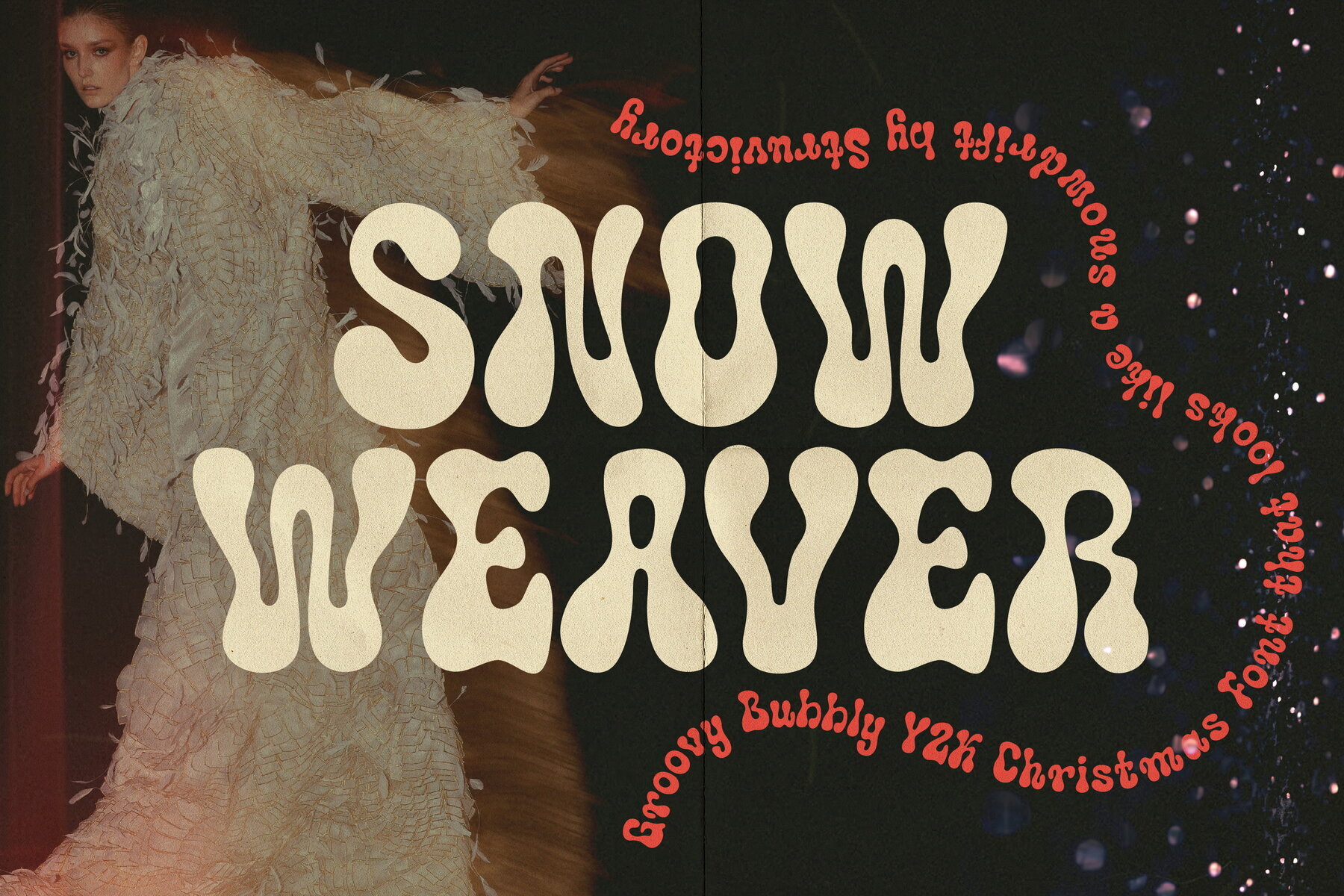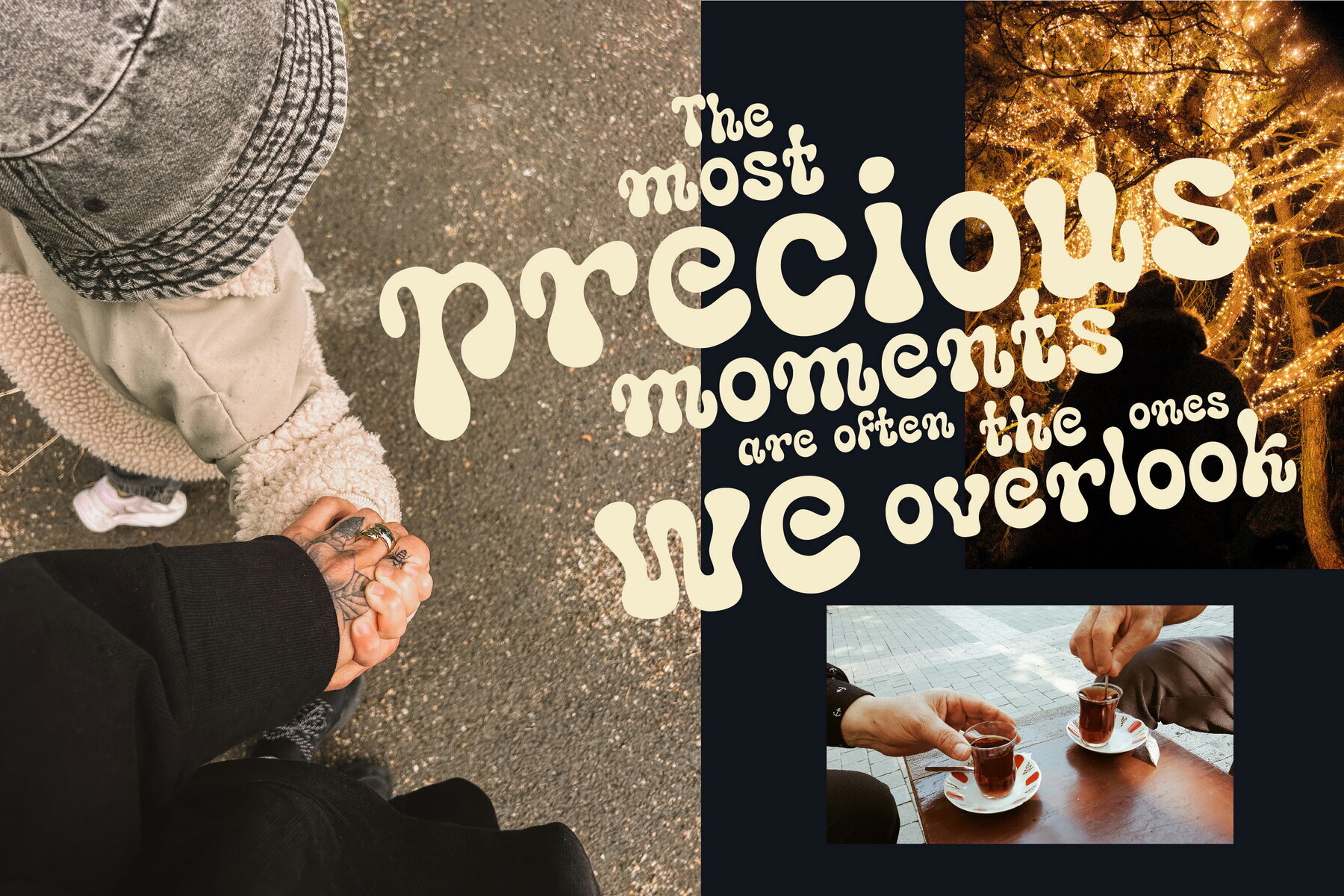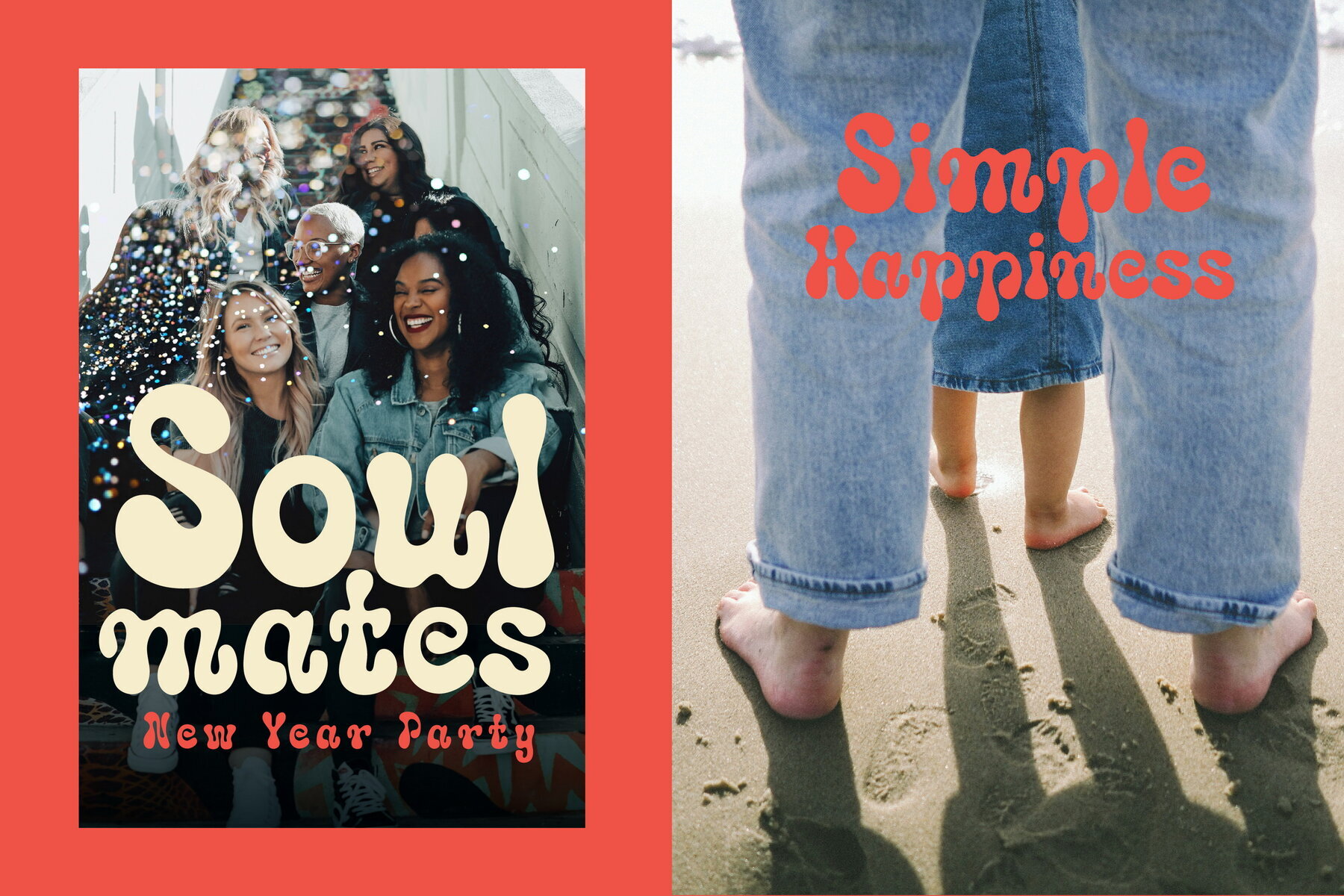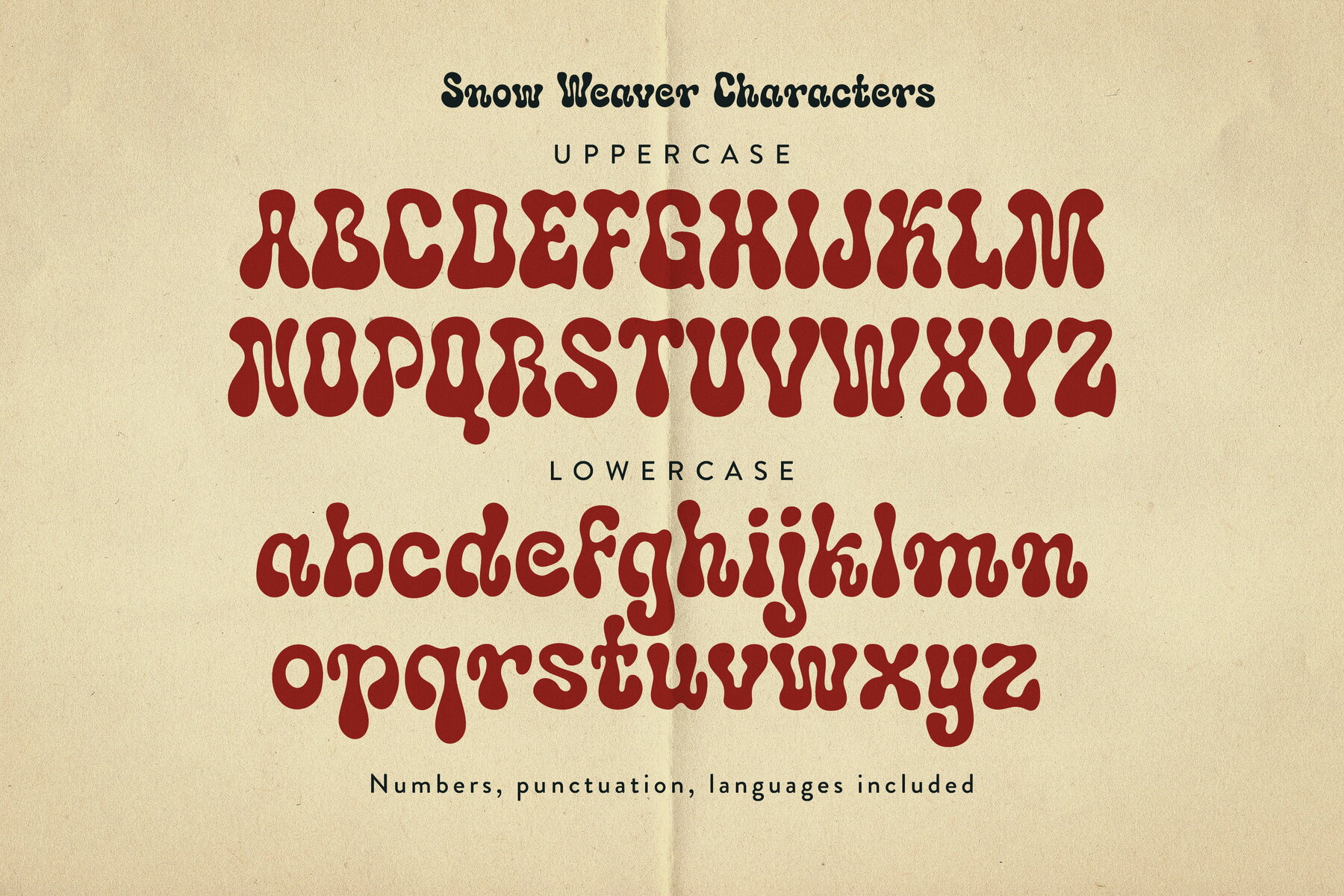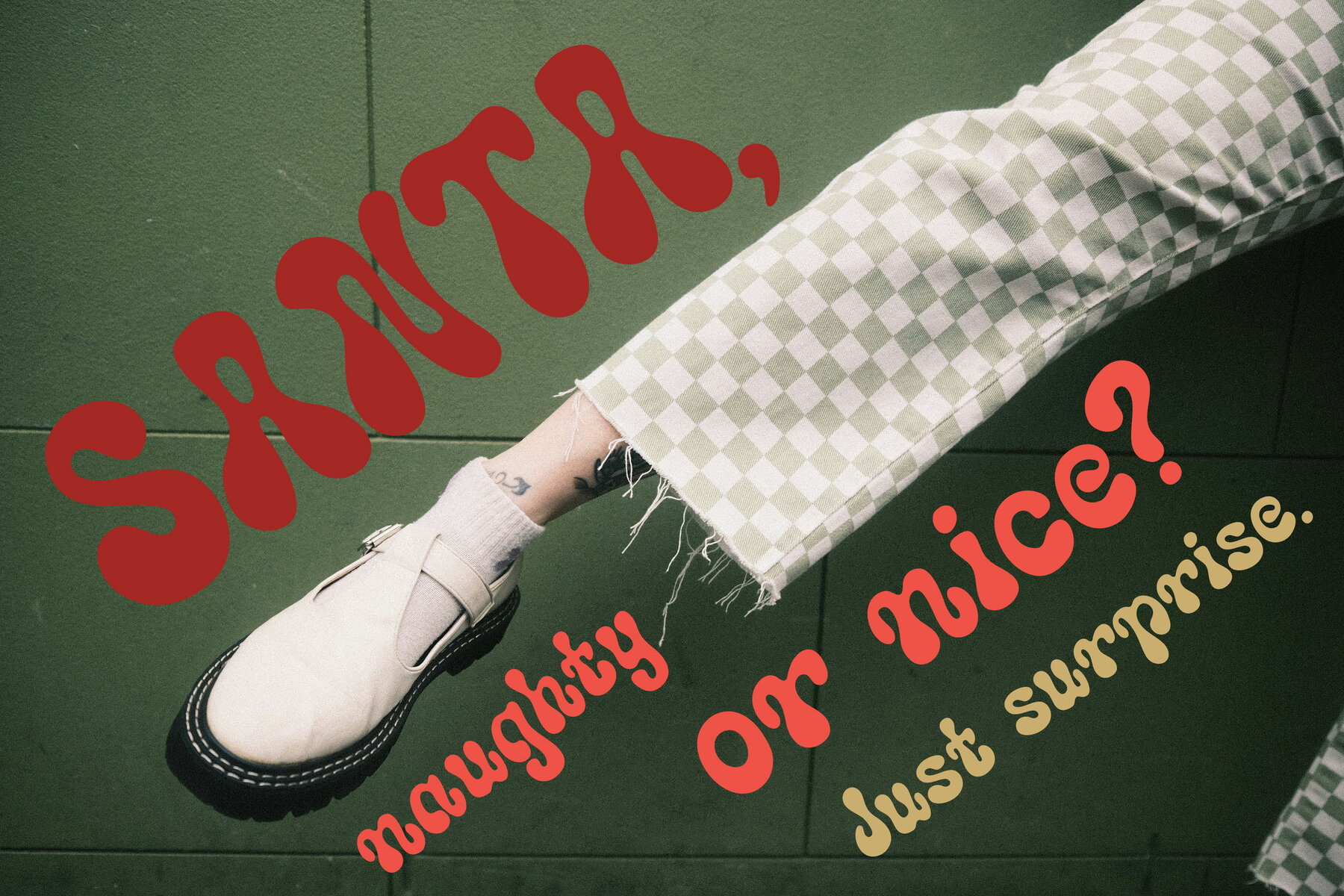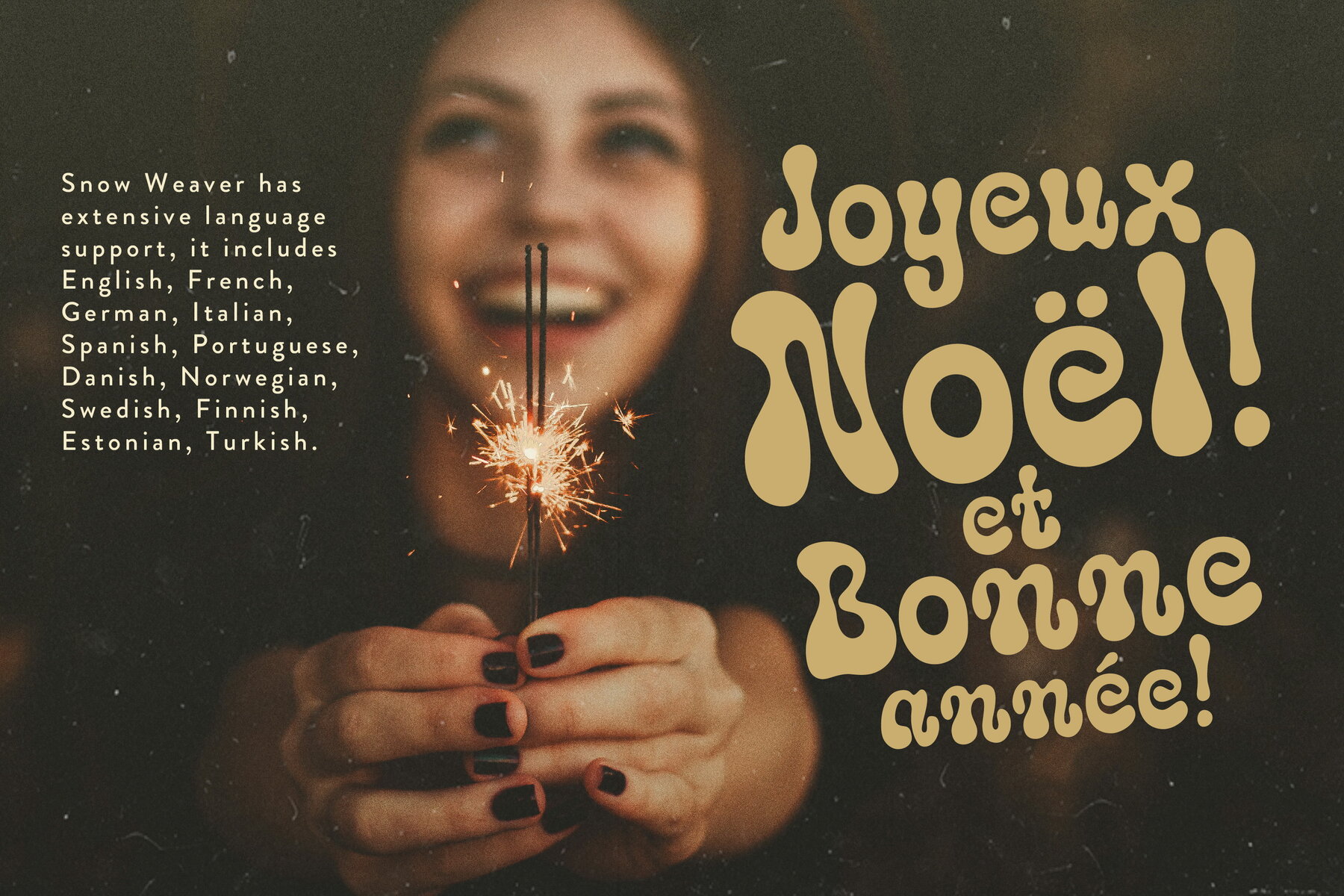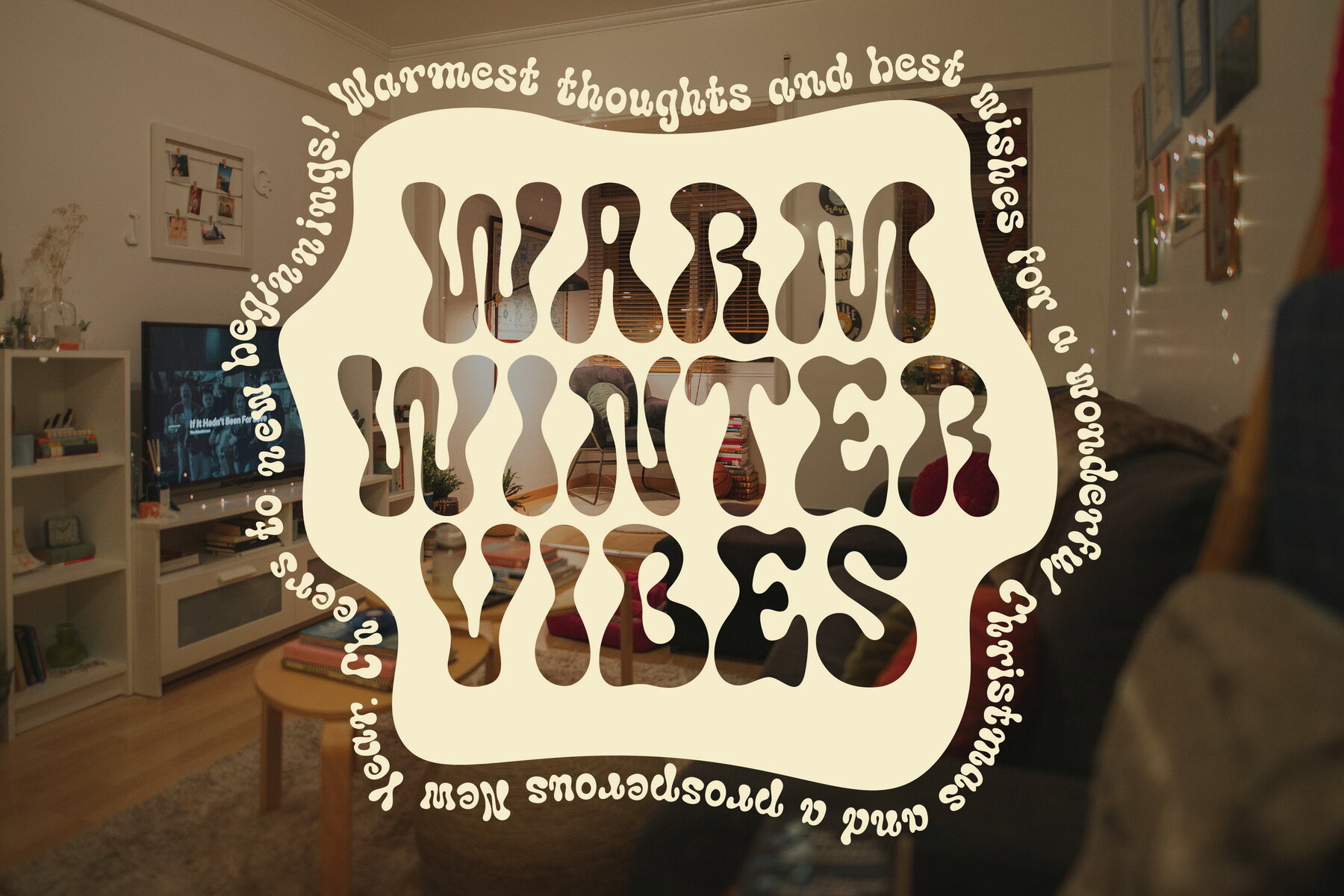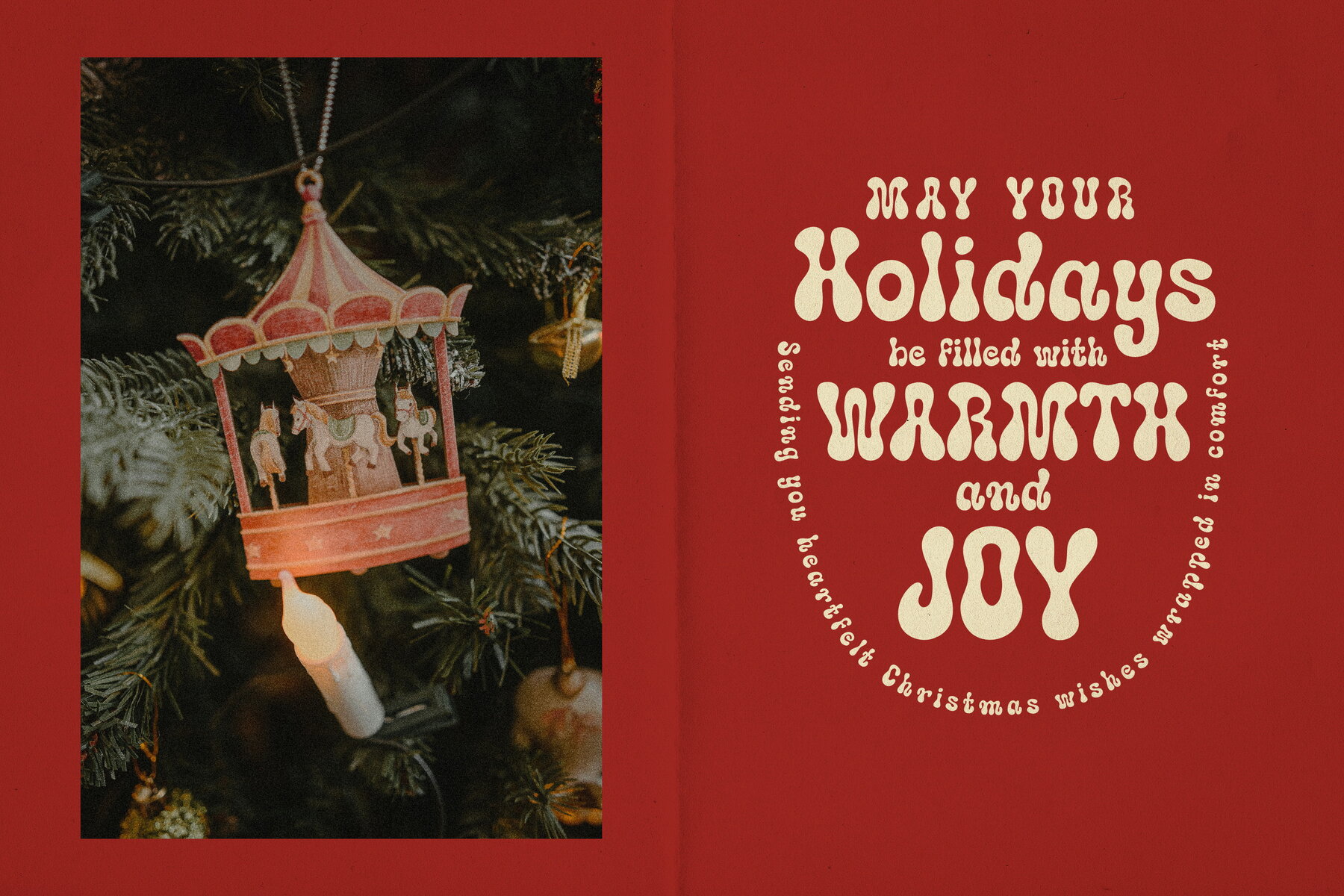
Snow Weaver Font
Snow Weaver Bubbly
Snow Weaver is a bubbly, bold typeface designed to bring coziness and holiday cheer to your projects. With playful curves and a whimsical design, this font captures the warmth and festive spirit of the Y2K aesthetic. It's an excellent choice for crafting winter graphics, cheerful greeting cards, and joyful holiday posters that convey a sense of festive magic.
This typeface perfectly complements Christmas designs, helping you infuse your projects with whimsy and comfort. Whether you're designing for a holiday campaign or personal greeting cards, Snow Weaver adds a touch of seasonal charm. Its unique style and friendly appearance make any design feel warm and inviting, ideal for celebrating the holiday season.